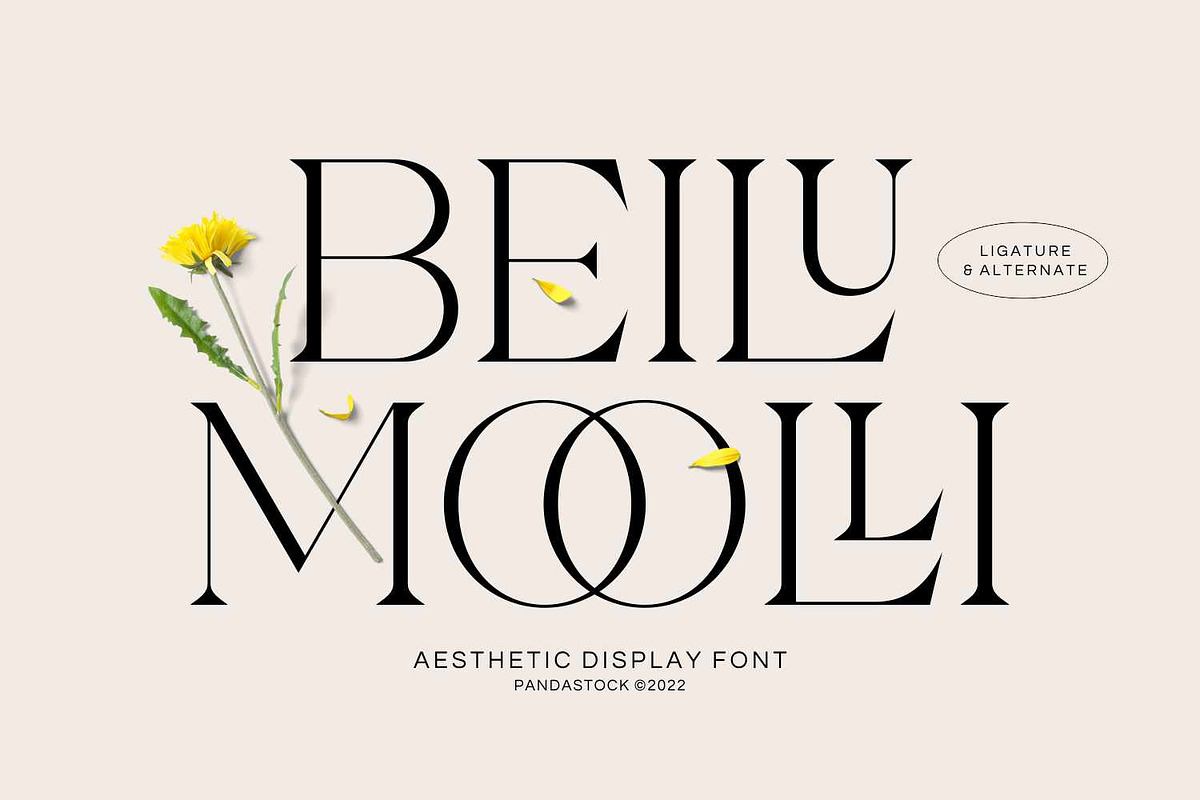
Beilu Moolli – Beautiful Modern Font Free Download is a sophisticated and stylish typeface that blends contemporary elegance with subtle charm. Perfect for high-end branding, editorial design, fashion projects, and invitations, this font adds a refined, modern touch to any creative endeavor.
With its clean lines, balanced proportions, and delicate curves, Beilu Moolli is ideal for projects that require a fresh, polished, and timeless aesthetic. It’s versatile enough to work in both formal and casual settings, making it an excellent choice for logos, headlines, body text, and more.